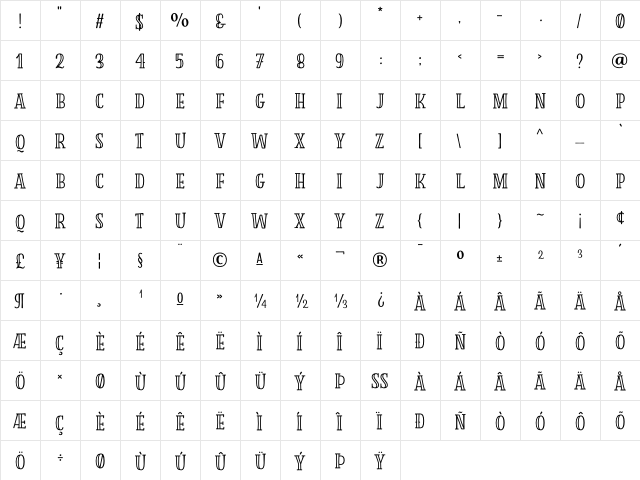
Storyteller Serif Regular
Design Context for Storyteller Serif Typeface
Storyteller Serif carries the refined structure of traditional serif typography, with bracketed terminals and considered proportions that communicate credibility and craft.
Pro Tip: Set Storyteller Serif with slightly loose tracking in headlines to let each letterform's detail read clearly at display sizes.